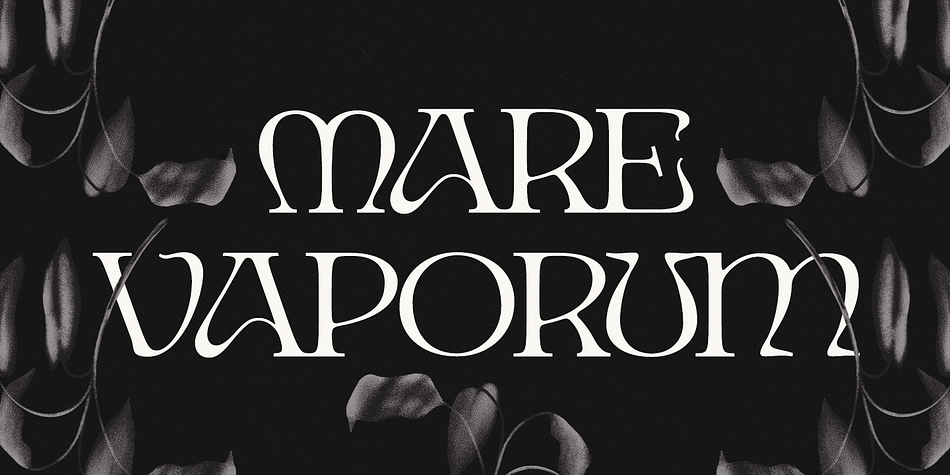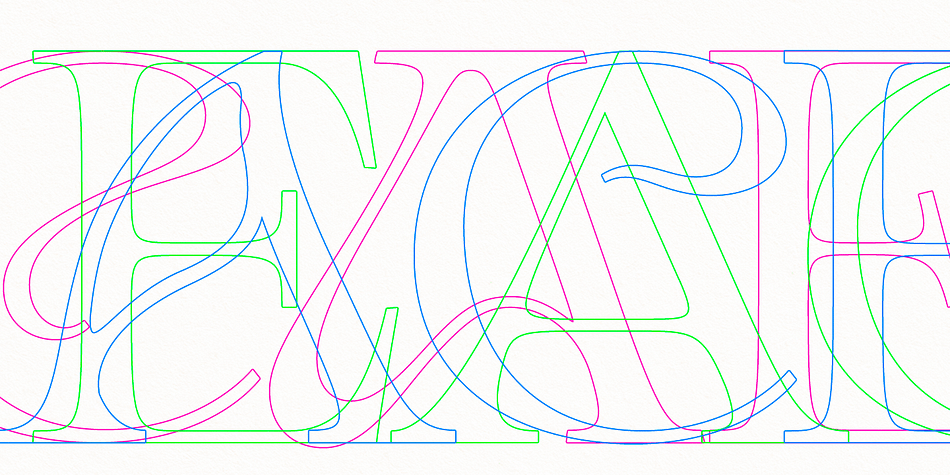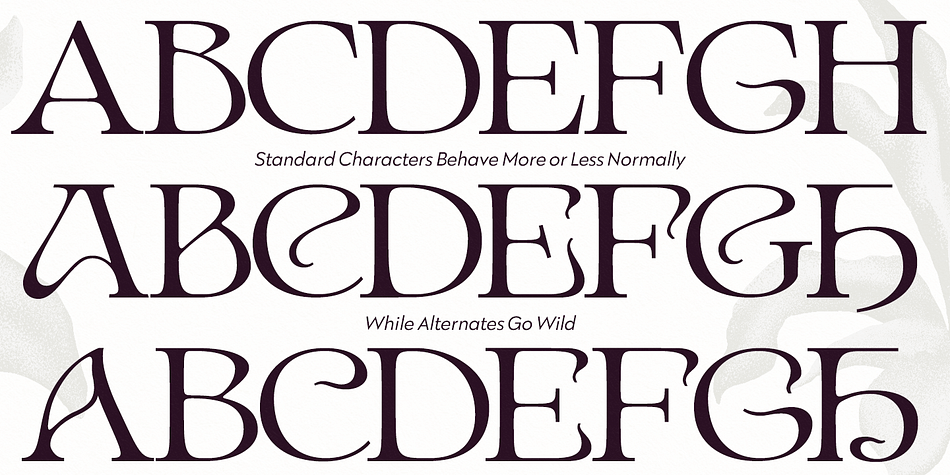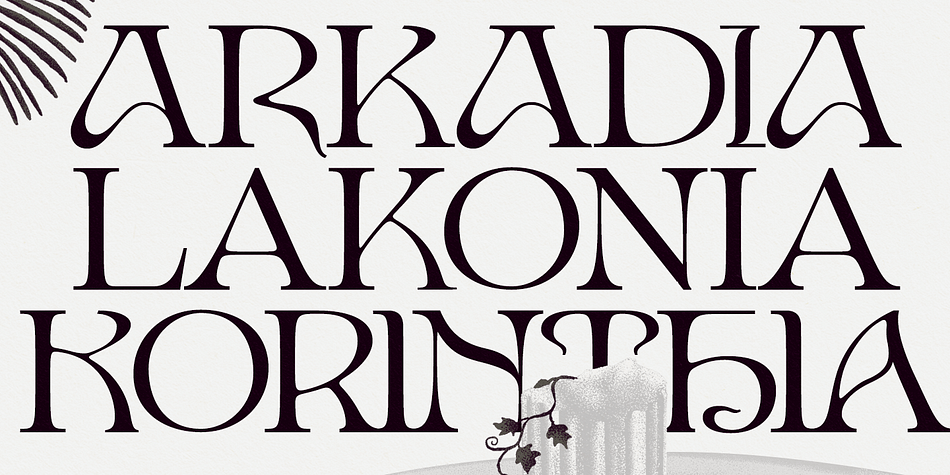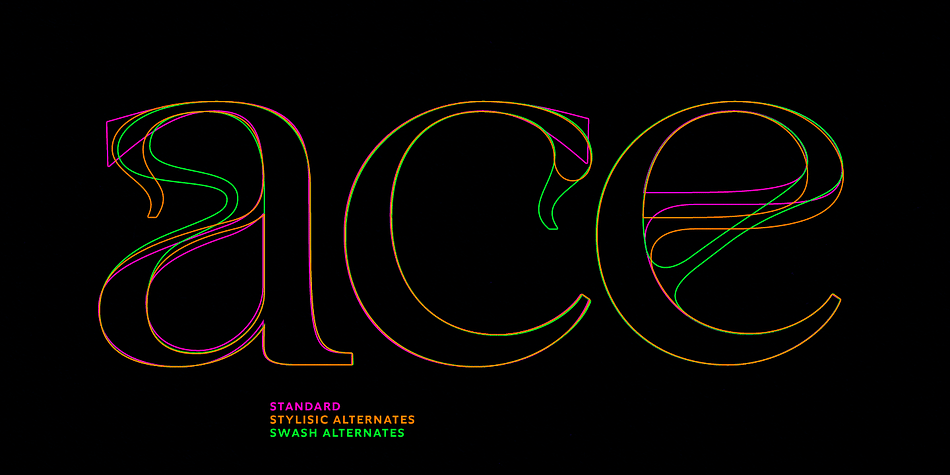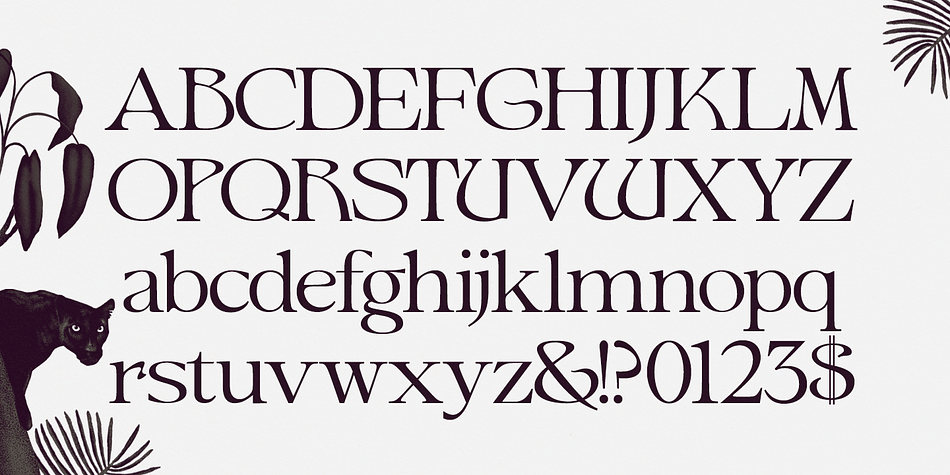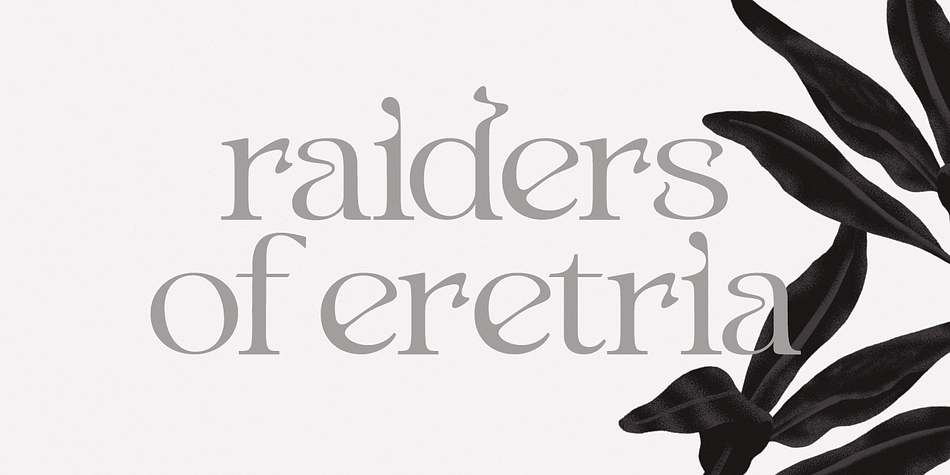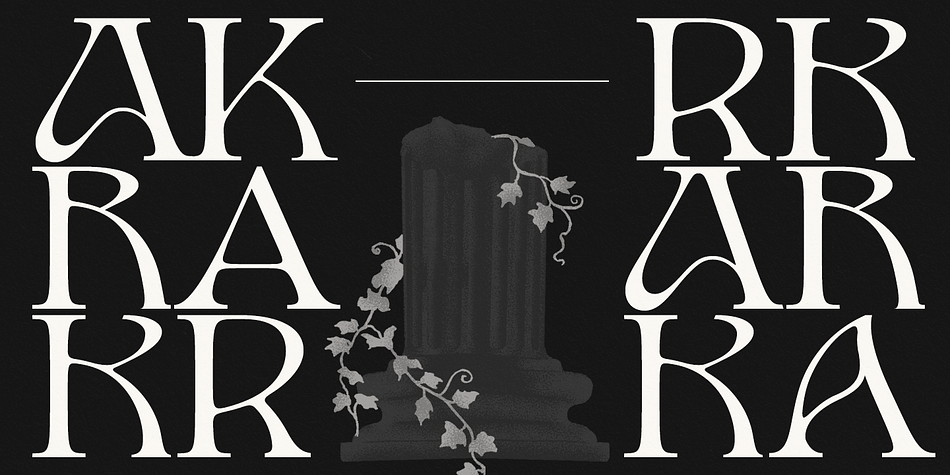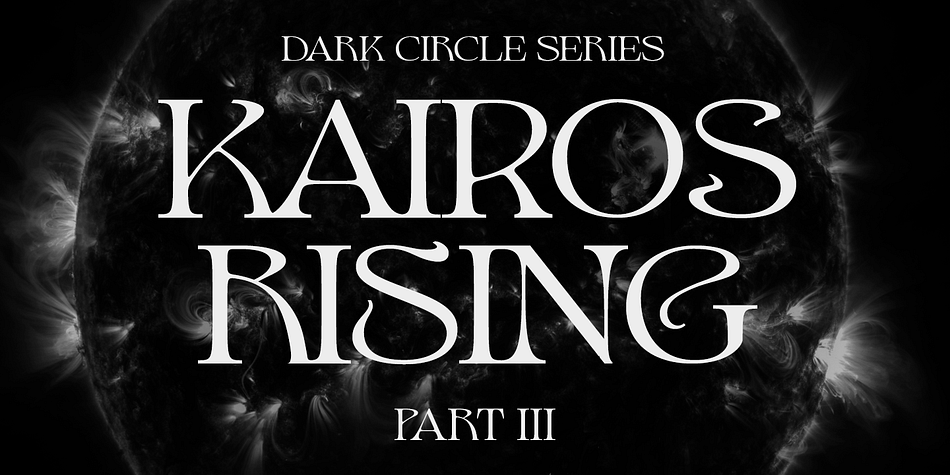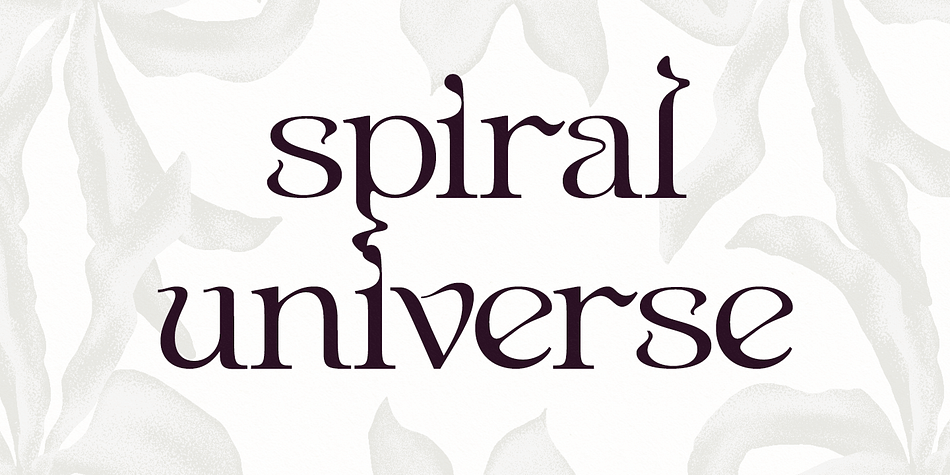
Ark
Designed by Emil Bertell, Ark is an art nouveau, display serif and retro font family published by Fenotype.
Let Ark, an Art Nouveau-infused high-contrast serif, transport your designs into the realm of elegant psychedelia.
Ark draws deep inspiration from Heinz Keune’s Edda, a remarkable design from 1900. While its vibe might evoke the groovy 70s and the mesmerizing world of trippy album covers, Ark transcends any assumed historical shabbiness. It trims the style into a refined and neatly cut serif, suitable for gallery-worthy presentations, all while maintaining a strong and unmistakable connection to its original roots.
The standard letters of Ark maintain a respectable demeanor, only scratching the surface of the font’s psychedelic potential. To truly unlock its full potency, try the Swash or Stylistic Alternates, or dig for even more Alternates from the Character palette.
Needless to say, that Ark is a natural match for anything trendy, artsy, wierd and fun.